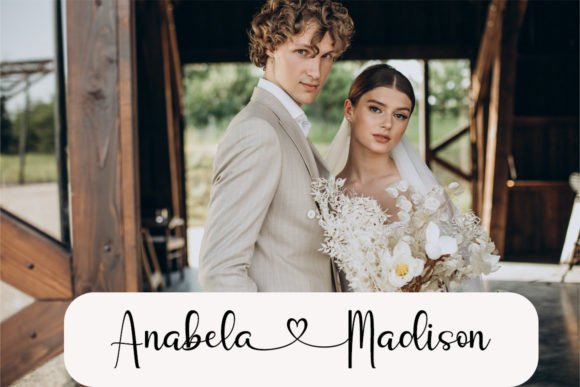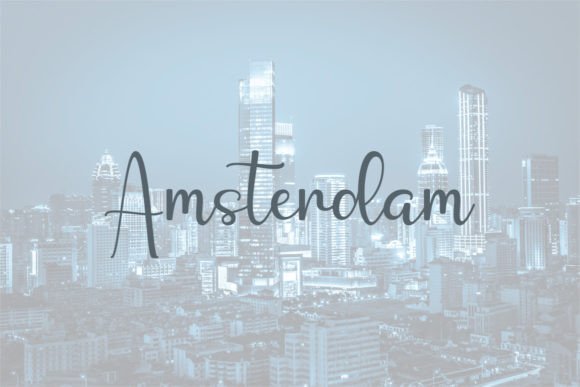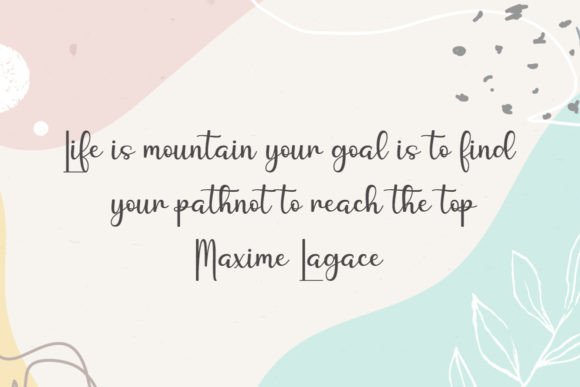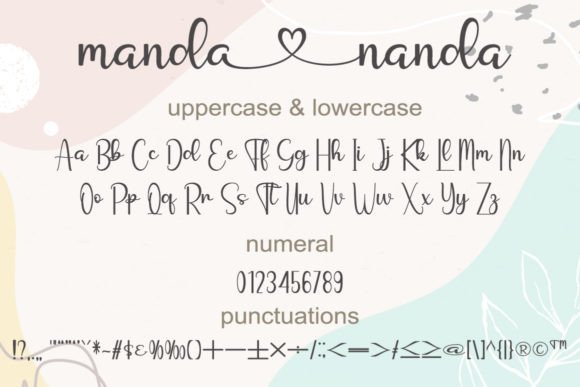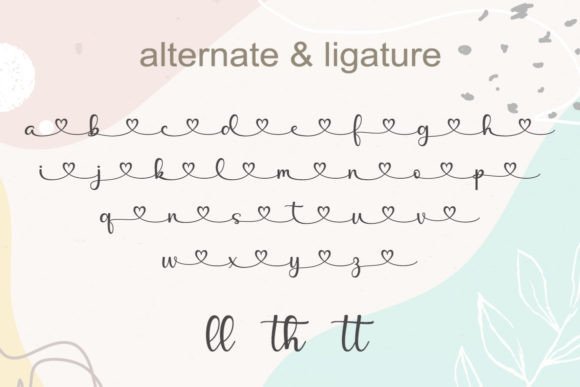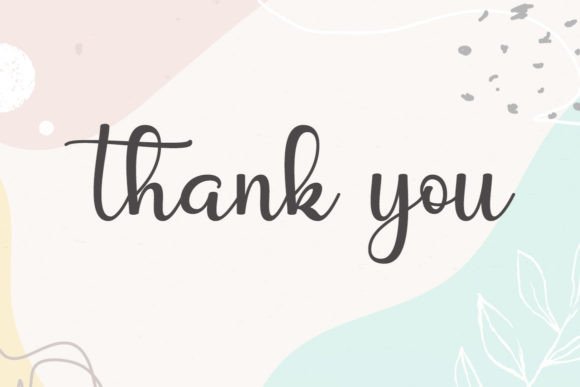
Introduction to Manda Nanda Font
This high-quality, handwritten font is the perfect design resource for anyone looking to add a touch of elegance to their creative project. Whether you’re working on a logo, branding, or quote, Manda Nanda Font is sure to captivate your audience. With its transparent background and versatility, it’s no wonder designers are falling in love with this font.
Key Features of Manda Nanda Font
- High-quality design resource ideal for creative projects and professional applications
- Designed with a unique blend of modern and traditional elements, setting it apart from other fonts
Honest Review: Manda Nanda Font
- ✨ Unique and quirky design aesthetic that adds a touch of personality to any creative project.
- ⚠️ Limited font sizes and styles, which may not be suitable for all design projects.
- ⚠️ Not ideal for projects that require a lot of customization and flexibility.
Overall, I would say that the Manda Nanda Font is a great addition to any designer’s toolkit, especially for creative projects that require a unique and quirky touch. However, it’s not a one-size-fits-all solution, and designers should be aware of its limitations before using it.
Tips for Getting the Most Out of Manda Nanda Font
The Manda Nanda Font is perfect for various design projects, including business cards, brochures, social media graphics, and website headers. Its high-quality design and transparent background make it an ideal choice for any creative project.